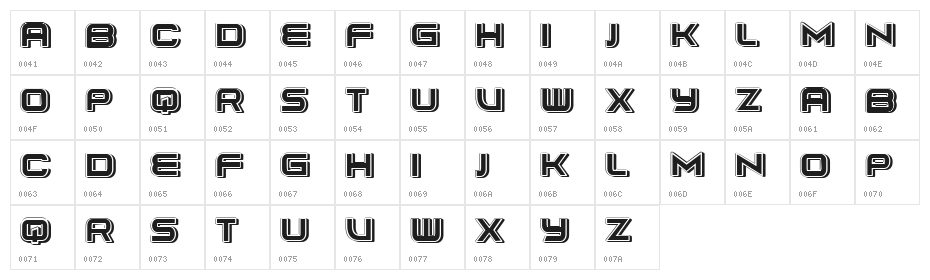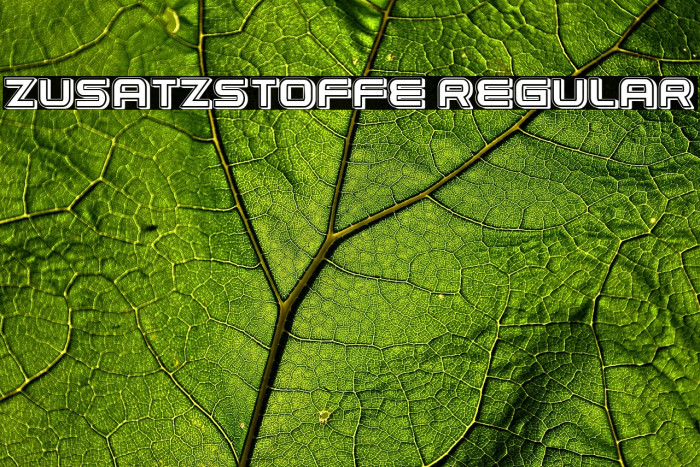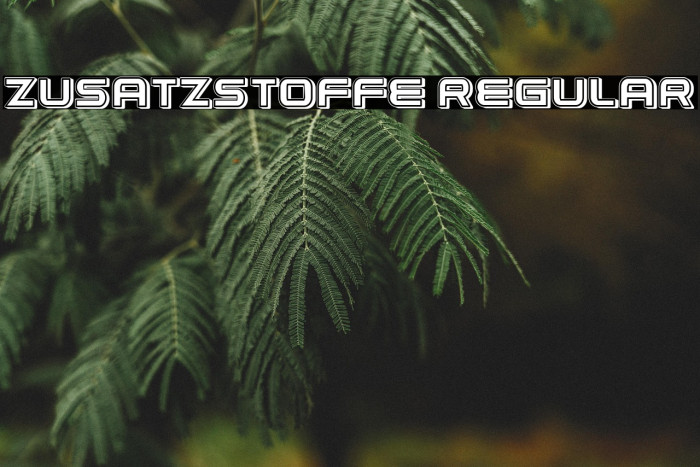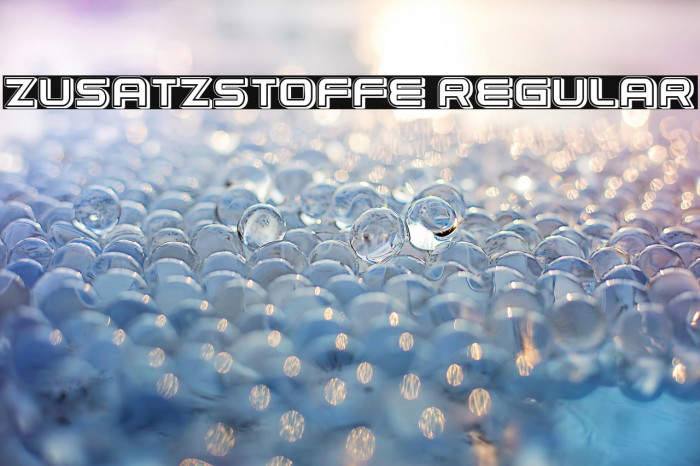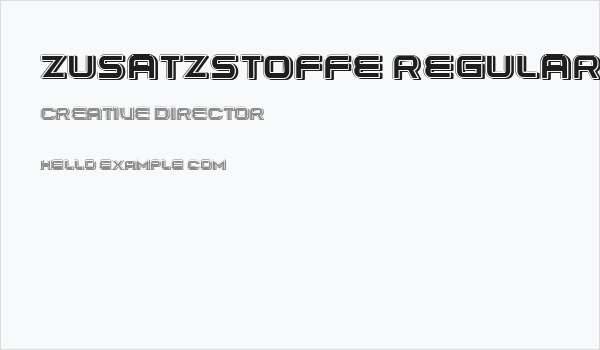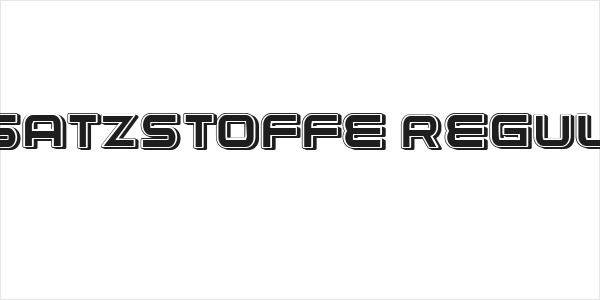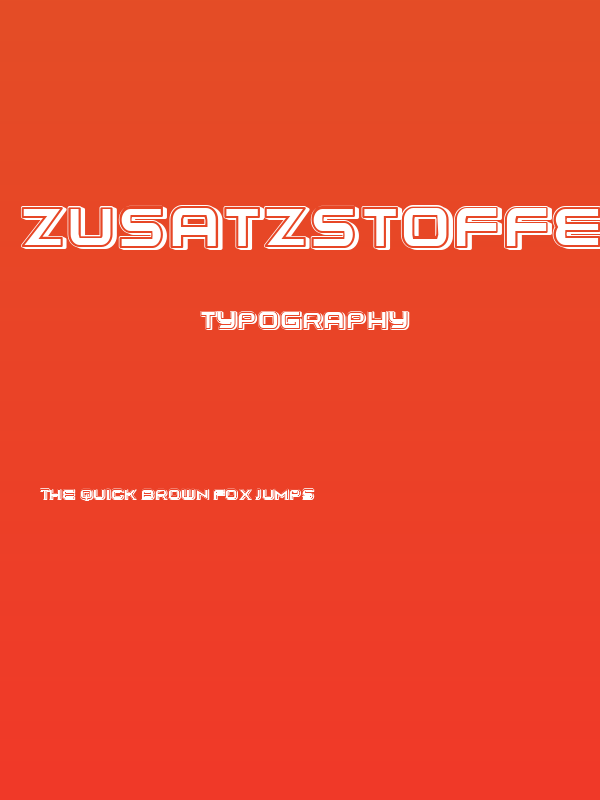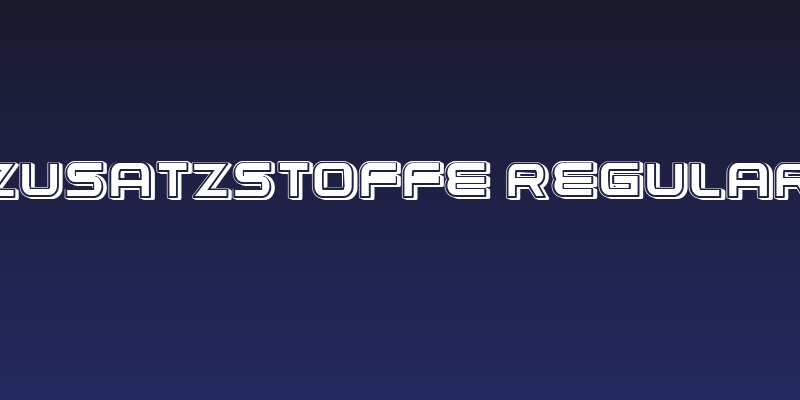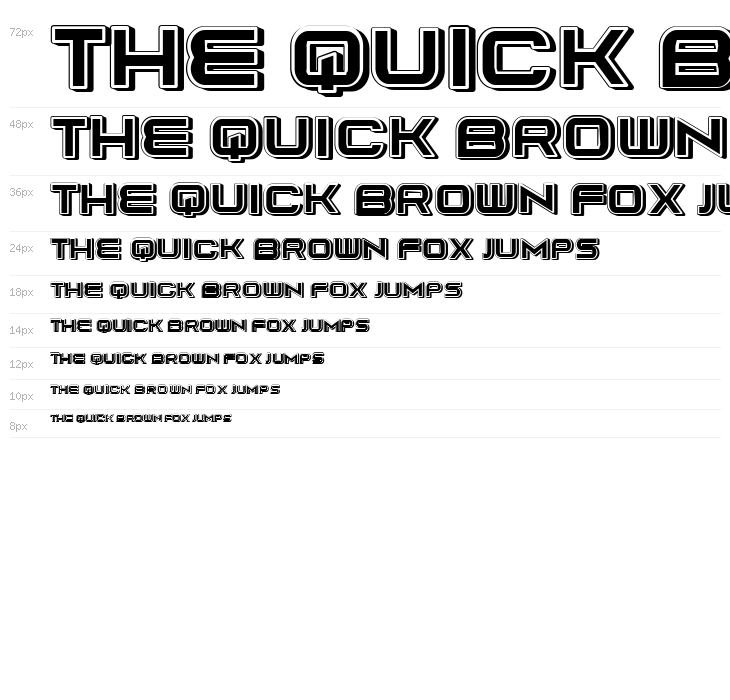
Zusatzstoffe Regular Font
Zusatzstoffe Regular Description
This font features a bold, geometric design with a distinct double-line outline that creates a striking visual effect. The characters are uppercase, with a futuristic and industrial feel, making them ideal for attention-grabbing designs. The consistent thickness of the strokes and the uniform spacing between characters contribute to a clean and organized appearance. The font's style is reminiscent of digital or technological themes, suitable for modern and innovative projects. Its unique outline effect adds depth and dimension, enhancing its visual impact.
| Proposed Projects | Ideal for technology branding, sci-fi posters, video game titles, and modern advertising. |